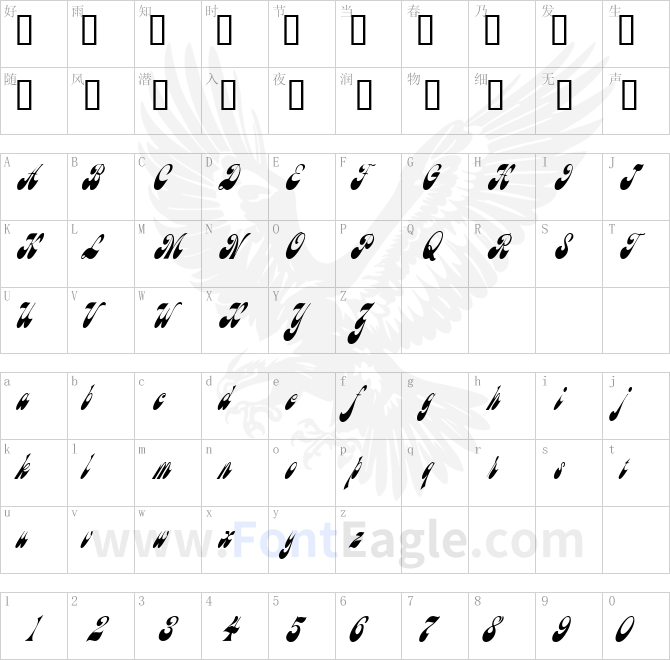
- Font name:HaightCondensed
- Font Subfamily ID:SWFTE:HaightCondensed Oblique
- Font Full Name:HaightCondensed Oblique
- Postscript:HaightCondensedObliqueSWFTE